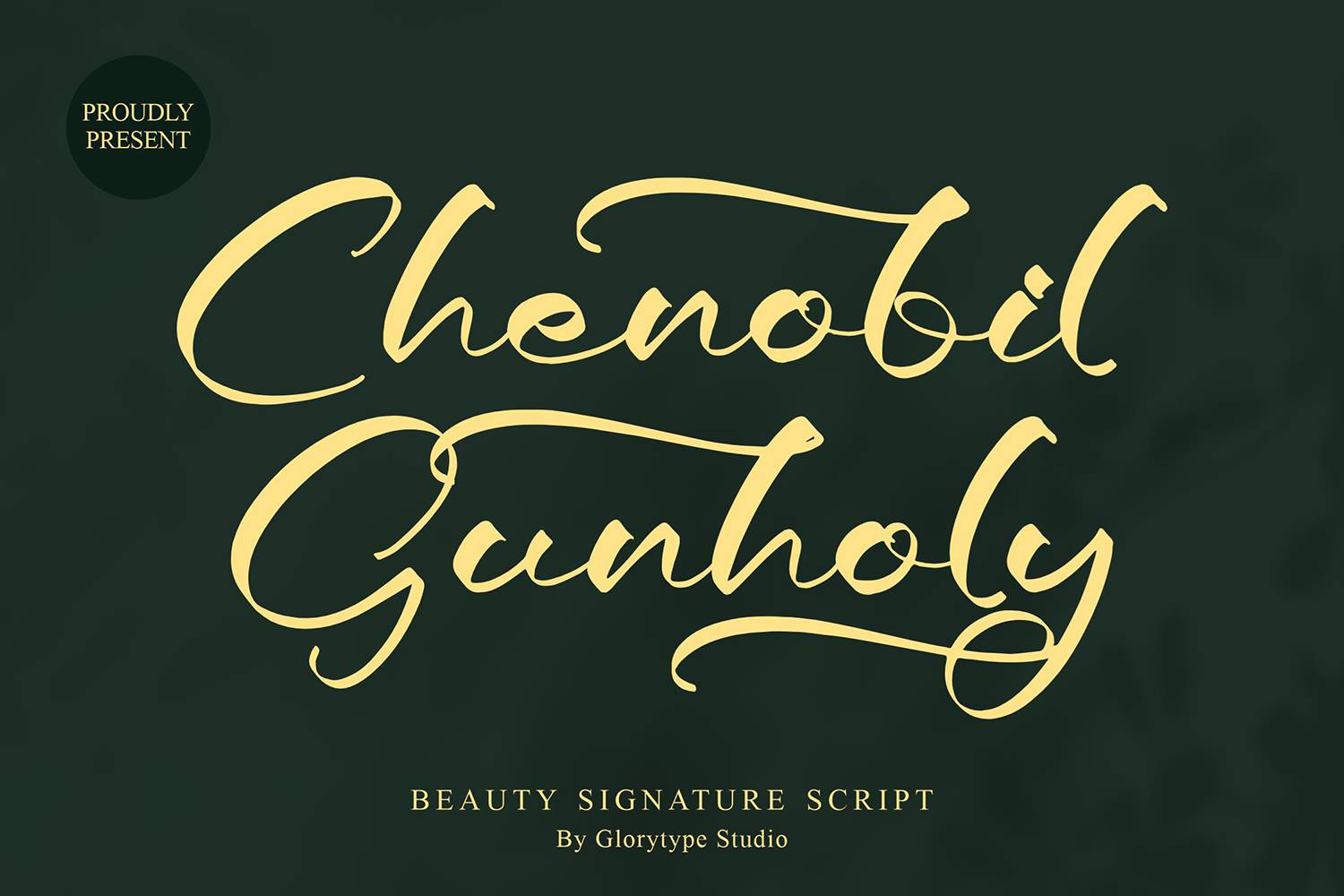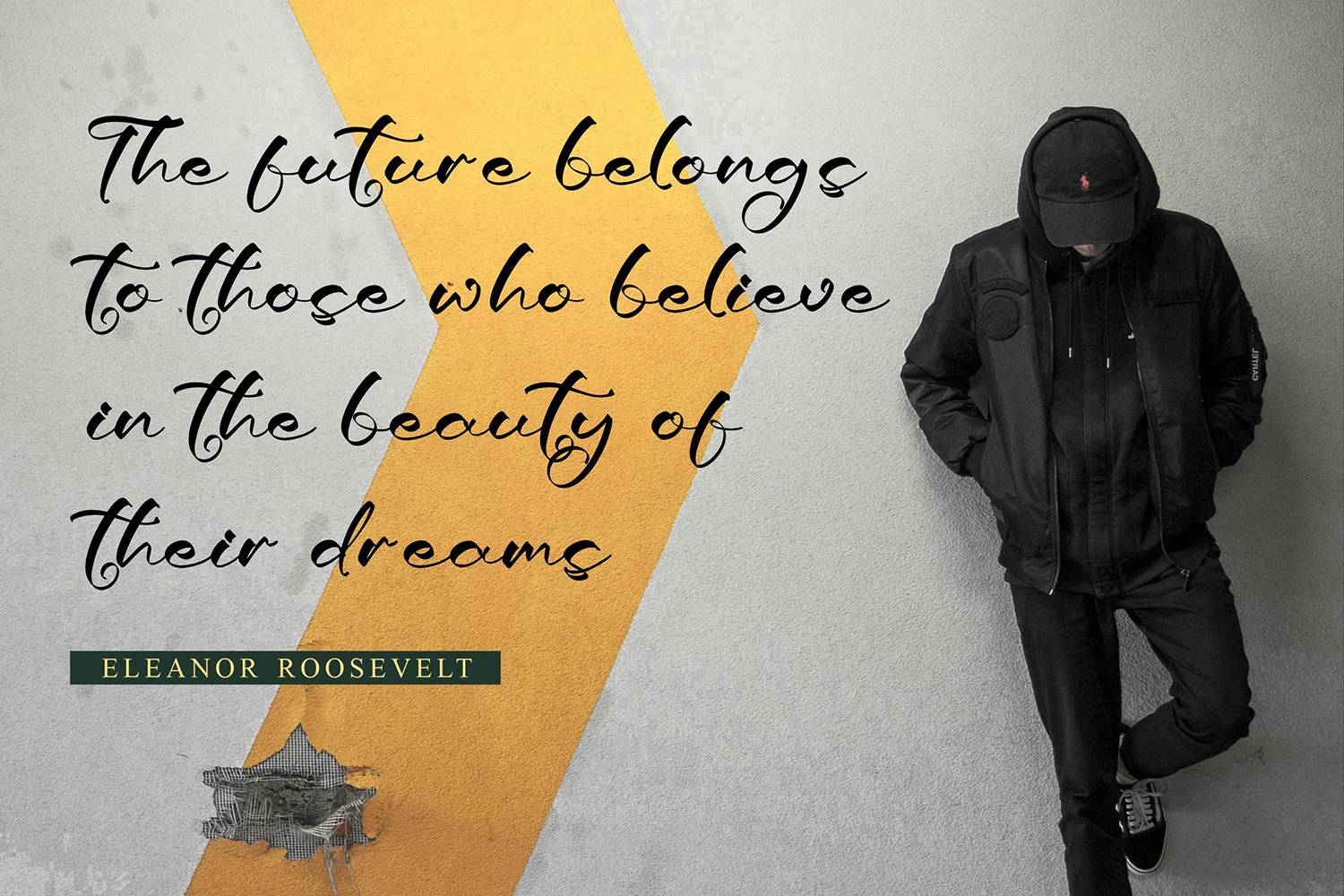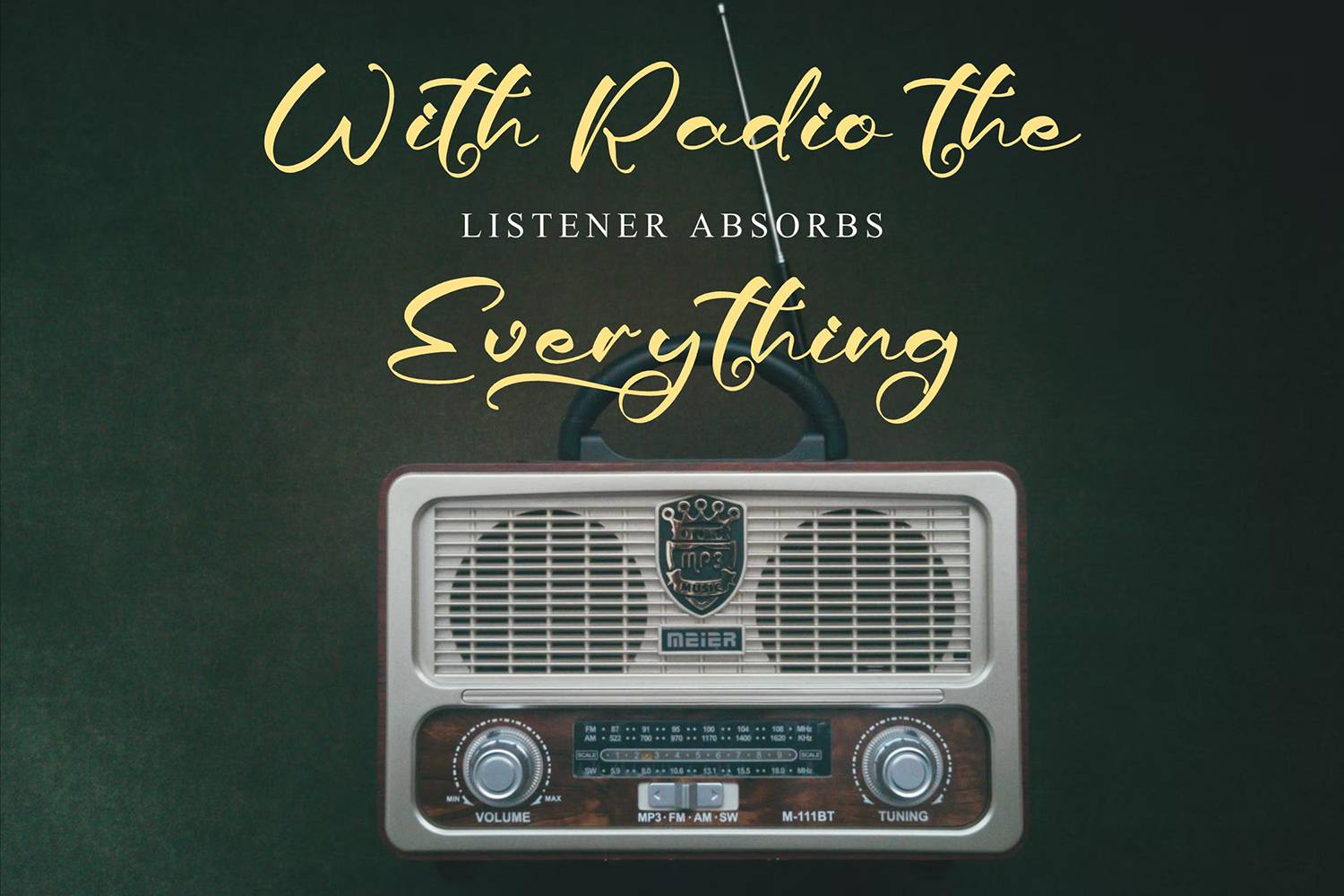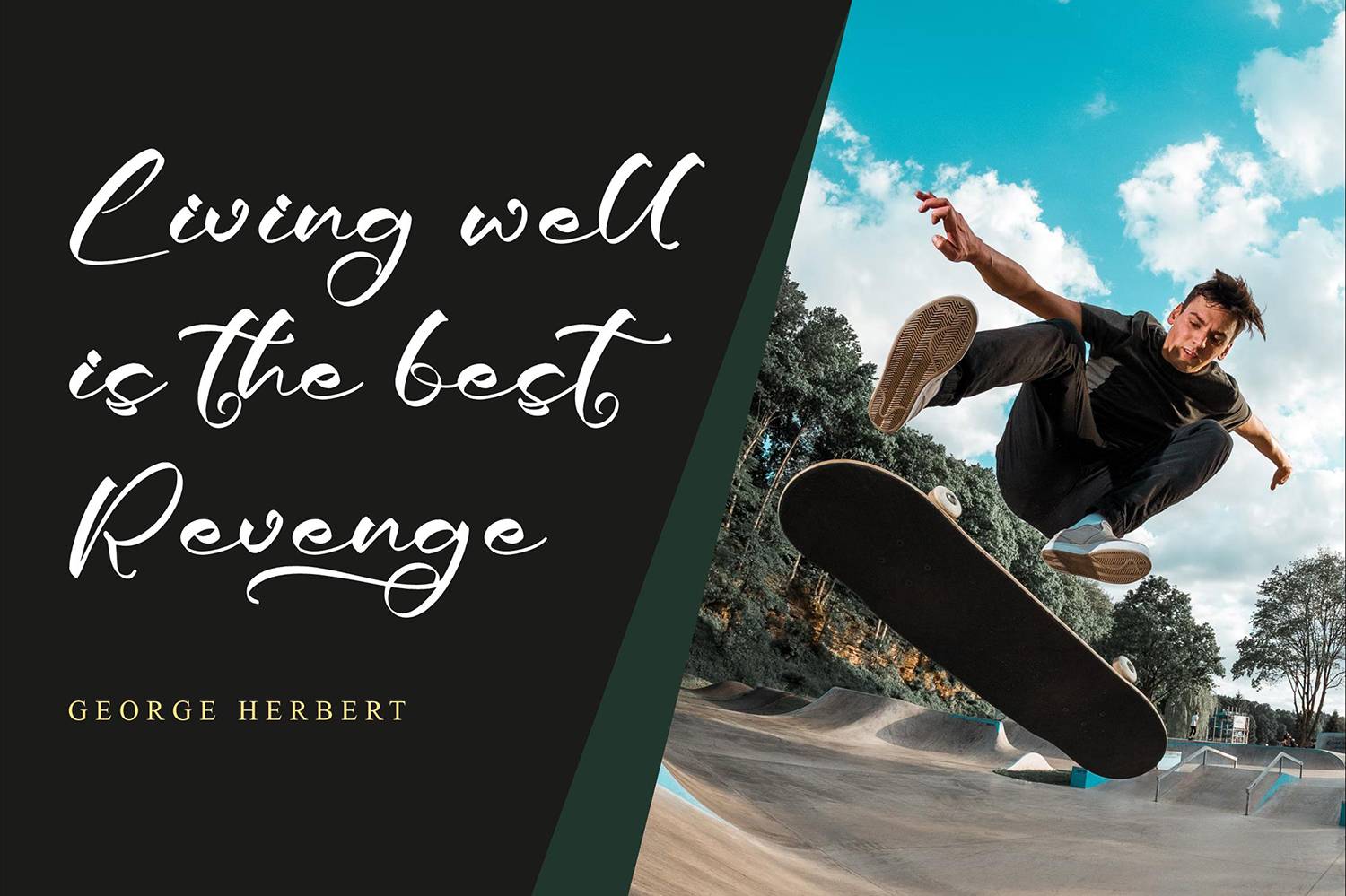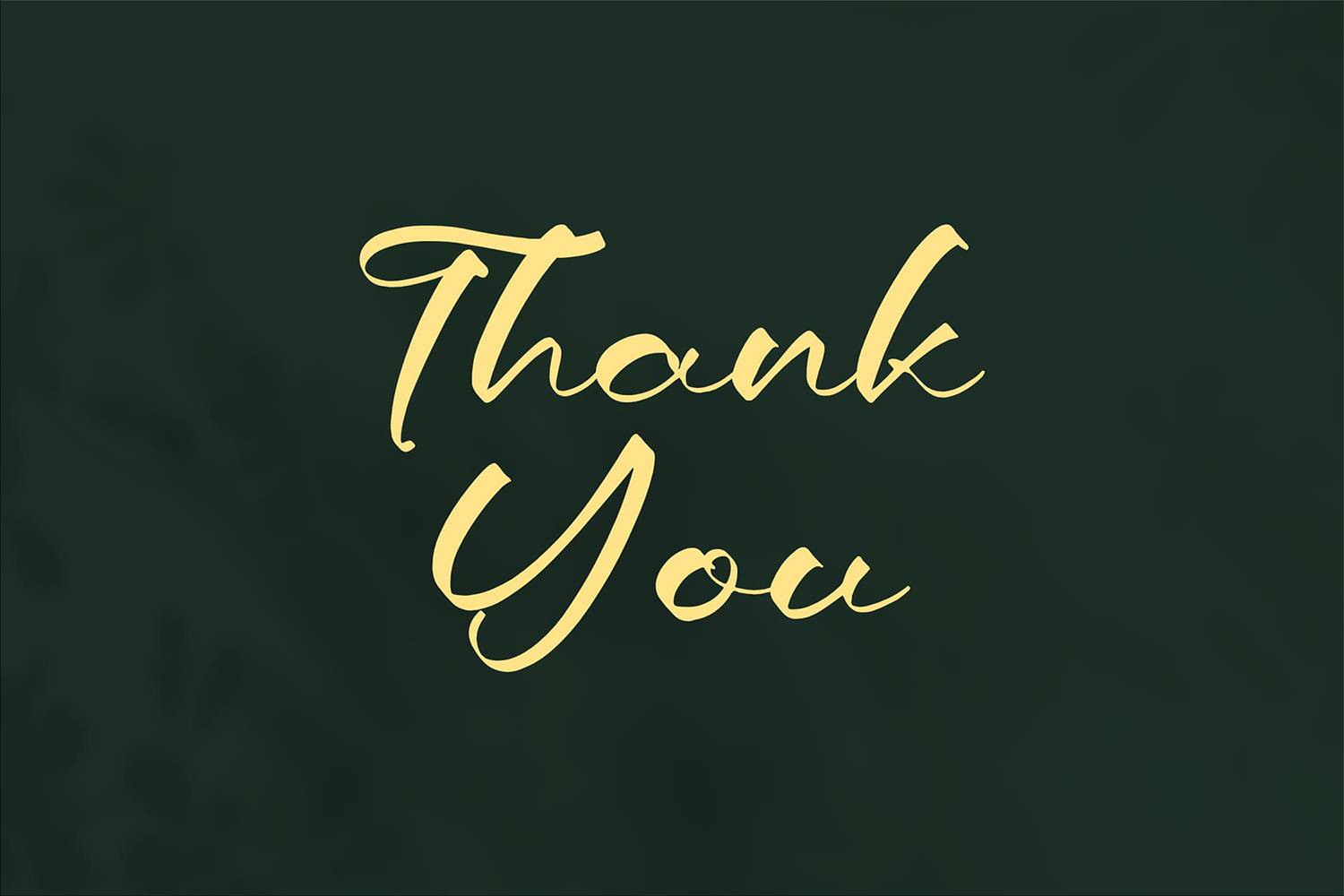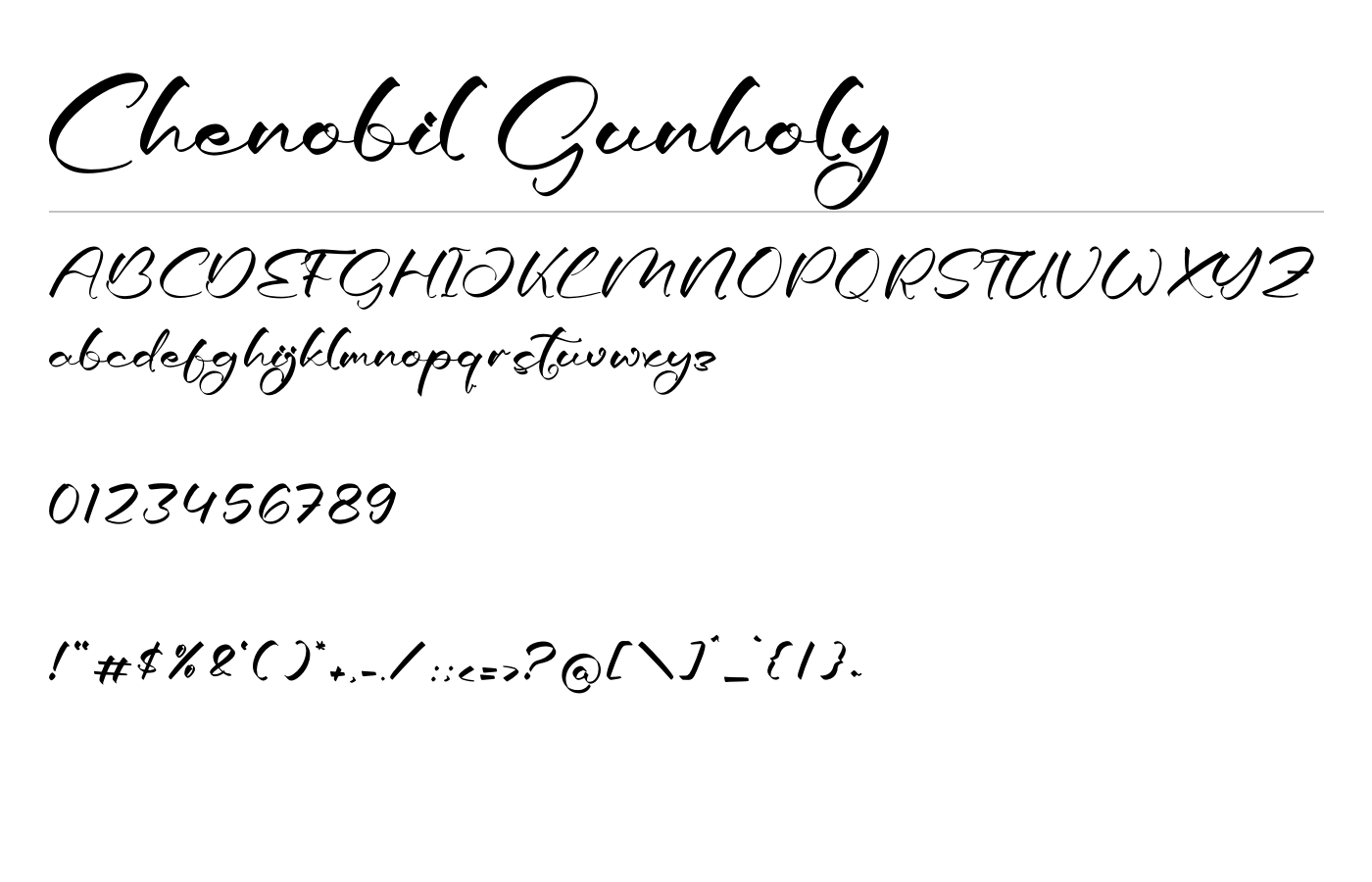
Chenobil Gunholy is a stylish script font with a flowing, handwritten feel, characterized by its elegant curves and moderate contrast in stroke thickness. Its smooth, slightly playful letterforms and a casual yet refined personality make it ideal for creative branding, invitations, and artistic projects where a personal touch is desired. This font works best in headlines, logos, and designs that benefit from a warm, approachable style with a sense of sophistication.
Chenobil Gunholy Font
About Chenobil Gunholy Font